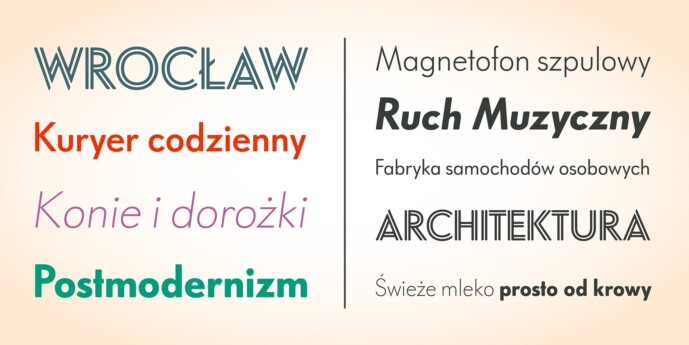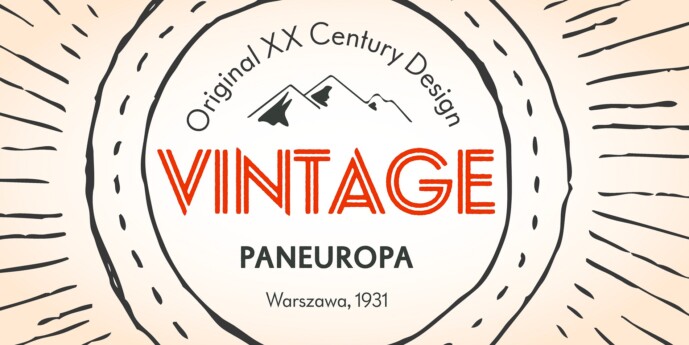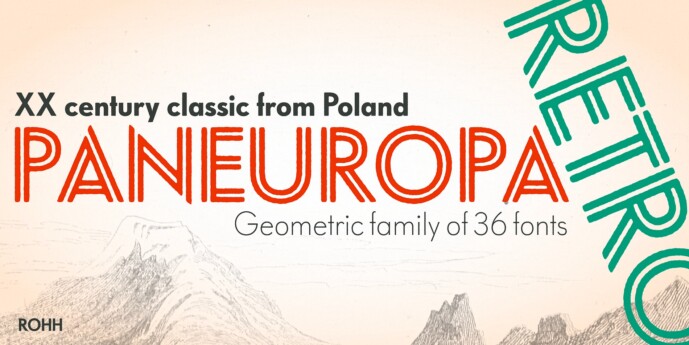
Paneuropa Retro Font Family
Paneuropa Retro Font Family is a geometric, clean and versatile font family inspired by Paneuropa – XX-century Polish classic, made by Idzikowski foundry in Warsaw, 1931. Paneuropa was a reinterpretation of Paul Renner’s famous Futura – it was a bit narrower, with different proportions and letter endings. Paneuropa had completely different number and punctuation shapes than Futura. The family was extremely popular in Poland and was used for every kind of editorial use.
Paneuropa Retro is a sibling to Paneuropa Nova™ (compeletely redrawn, modern version of the family with perfected letter forms, proportions and spacing, additional symbols, weights and italics).
Retro family recreates the original typeface keeping its weights, as well as idiosyncrasies in letter shapes and spacing.